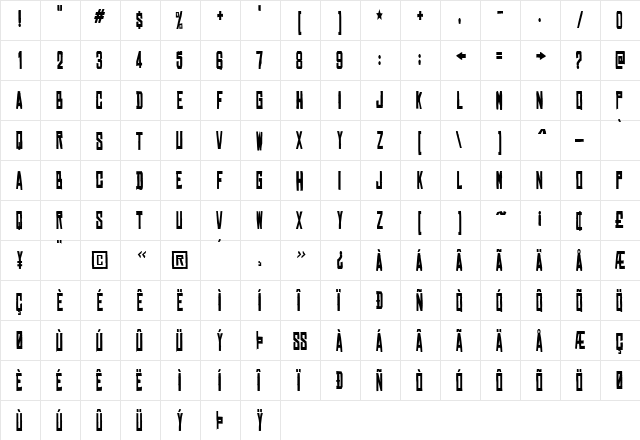
Chinese Rocks Cnd Bold
Design Context for Chinese Rocks Cnd Typeface
Chinese Rocks Cnd offers clean, dependable letterforms without strong stylistic allegiance, making it a practical choice for designers who need flexibility. The heavy weight commands attention and anchors typographic hierarchies.